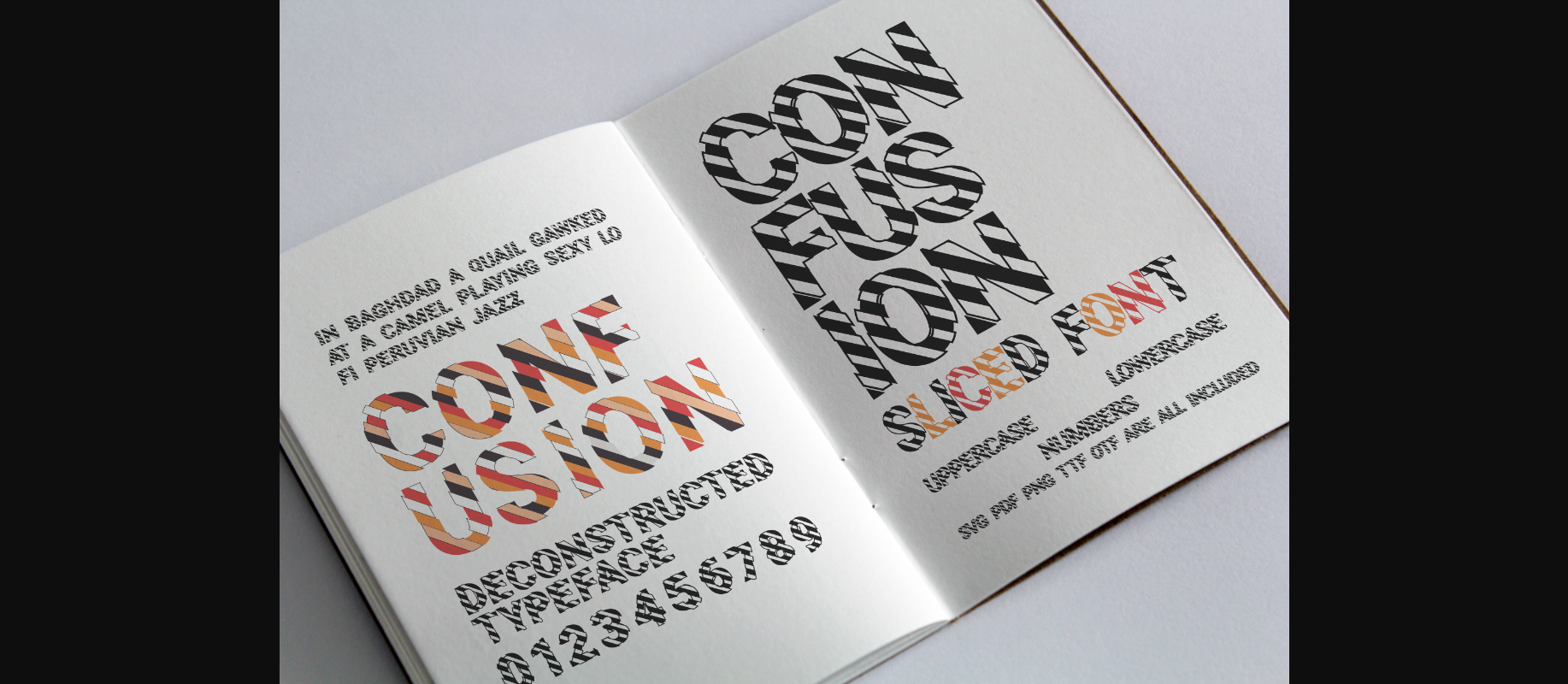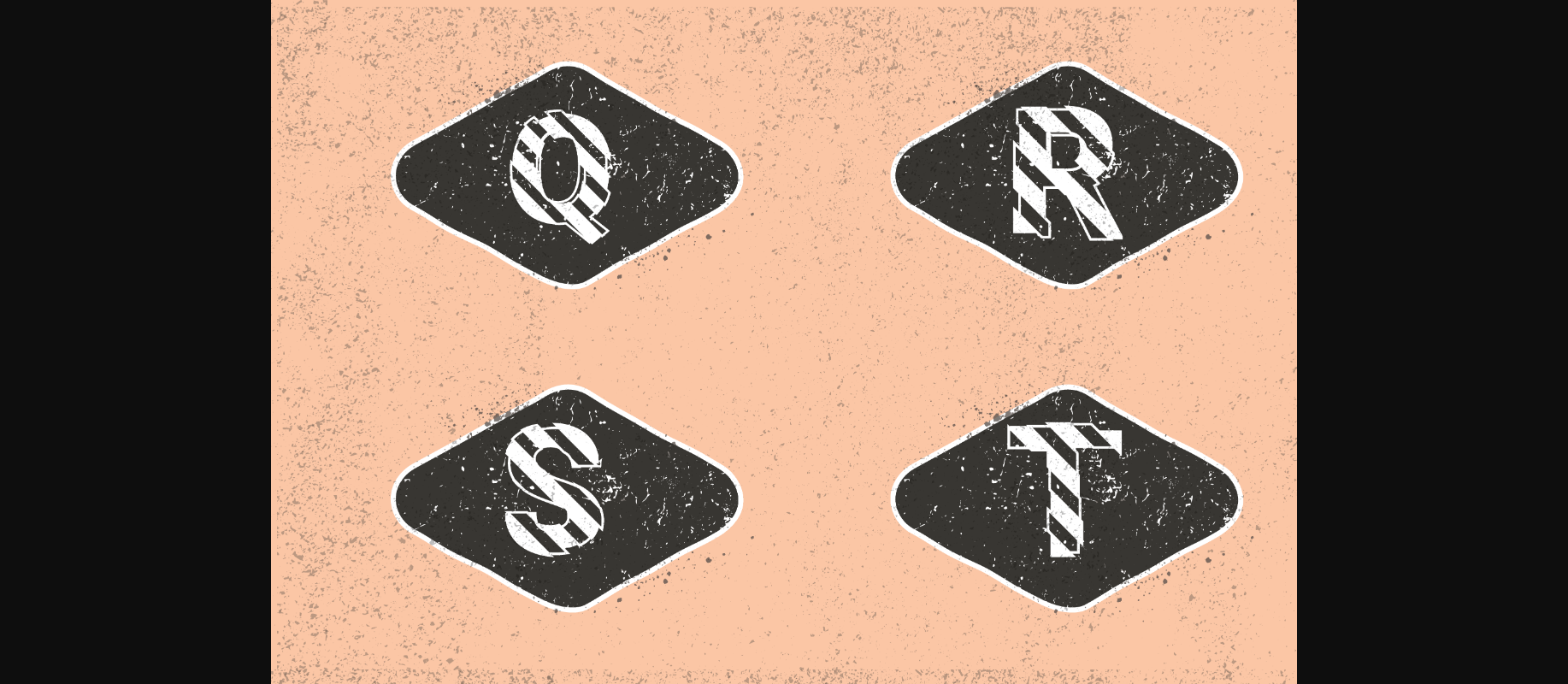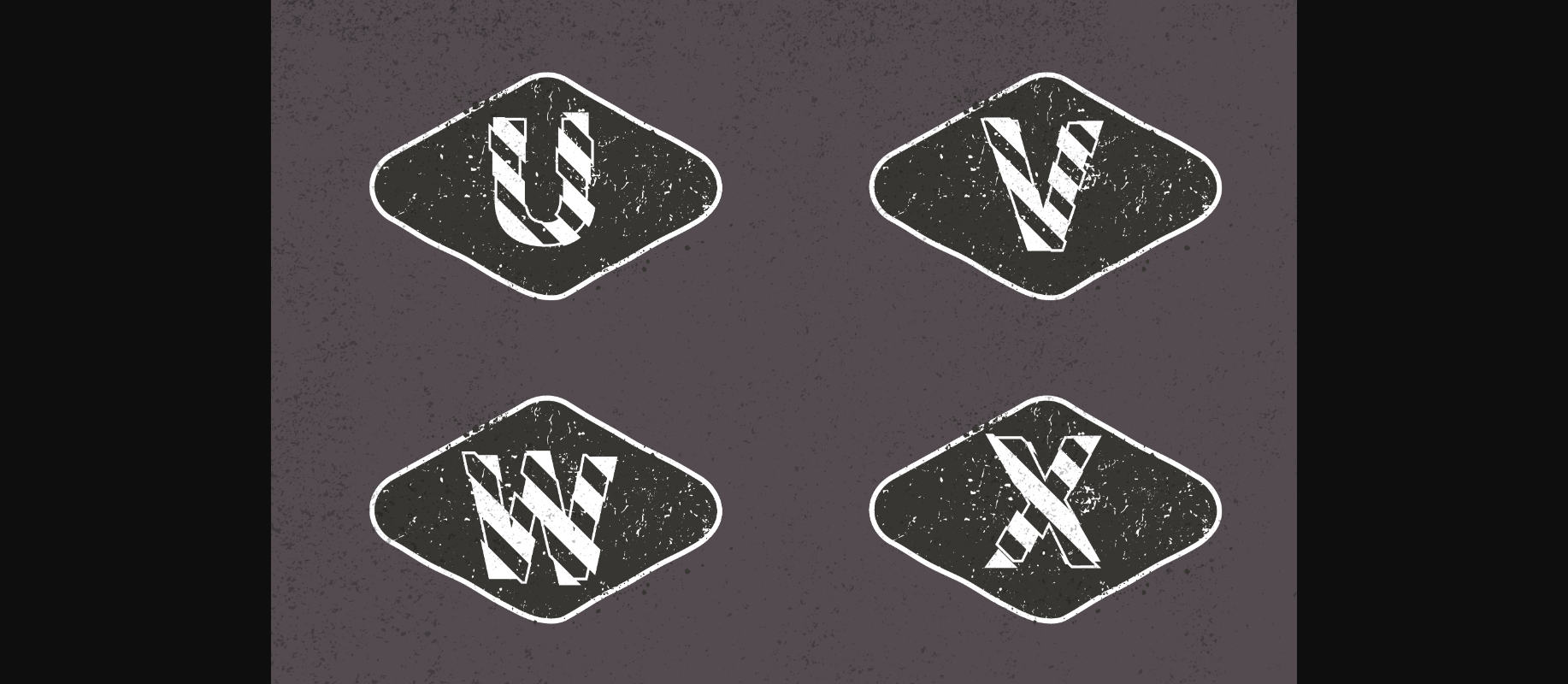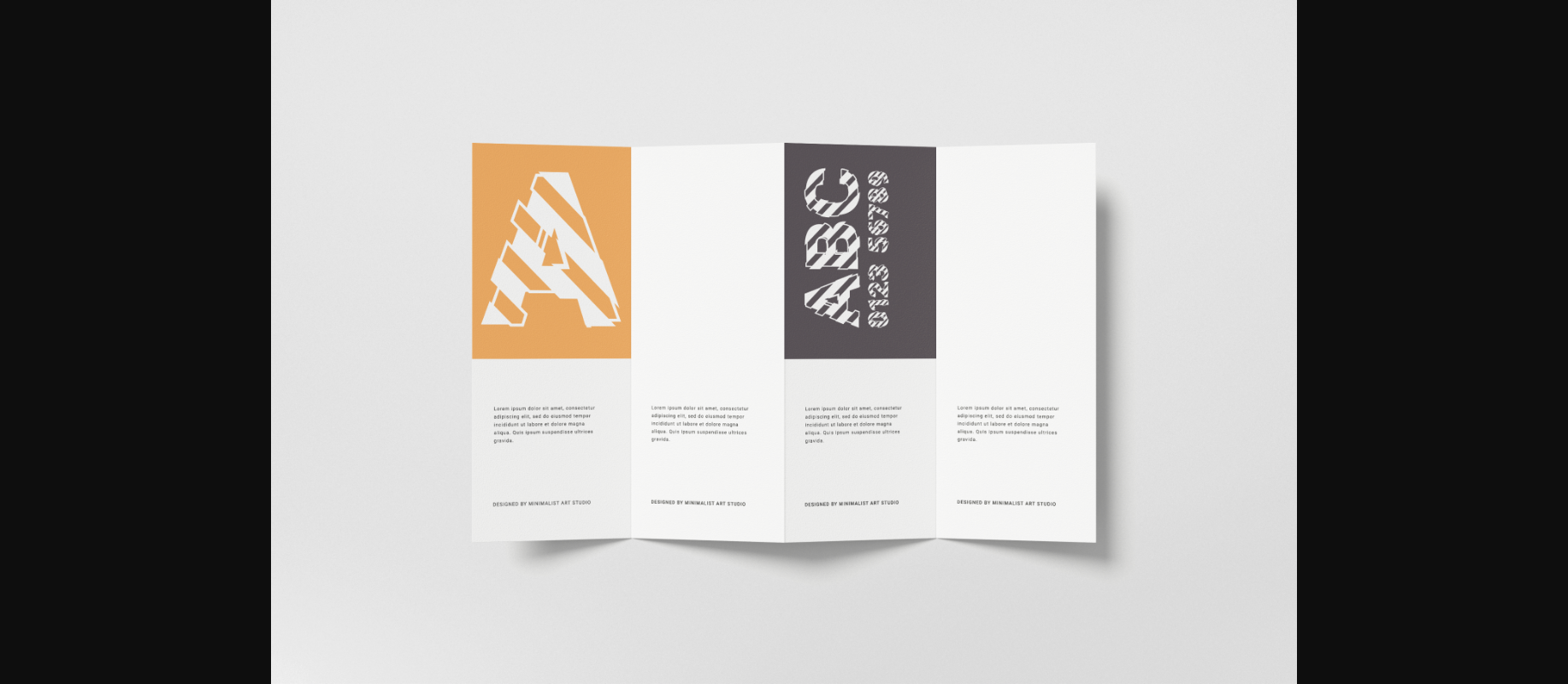
About Confusion Font
Confusion is a cool and unique decorative font. It will elevate a wide range of crafting ideas, from cards, to branding, labels and much more.